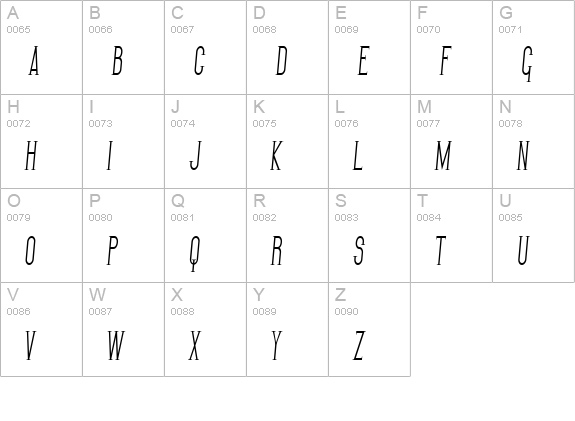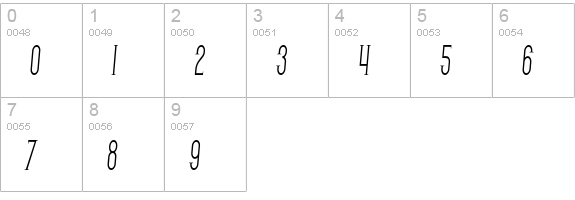
SF Gothican Condensed Italic Font Details
SF Gothican Condensed Italic is a distinctive, condensed-width, italic variant in the SF typeface family \xE2\x80\x94 well suited to design and typography projects.
SF Gothican Condensed Italic is a stunning and captivating font that combines the elements of dark and edgy aesthetics with a touch of elegance and sophistication. This condensed italic typeface is perfect for adding a mysterious and gothic vibe to any design project. The unique and sleek letterforms of SF Gothican Condensed Italic create a sense of movement and energy, making it ideal for eye-catching headlines, logos, and branding materials. Its italicized posture adds a dynamic and dramatic flair, bringing a sense of intrigue and allure to your designs. What sets SF Gothican Condensed Italic apart is not just its visually striking appearance, but also the fact that it is free and easily accessible. This font is freely available to download at FontsMarket.com, making it a valuable asset for designers, artists, and anyone looking to add a touch of gothic elegance to their creative endeavors. Whether you're working on a dark-themed website, a poster for a goth music event, or even a gothic-inspired wedding invitation, SF Gothican Condensed Italic will undoubtedly make a bold statement. Its versatility and unique design make it a versatile font, suitable for a wide range of projects and applications. Download SF Gothican Condensed Italic for free at FontsMarket.com and unleash your creativity with this captivating and alluring font. Let it be the key to unlocking a world of dark beauty and stylish sophistication in your designs.